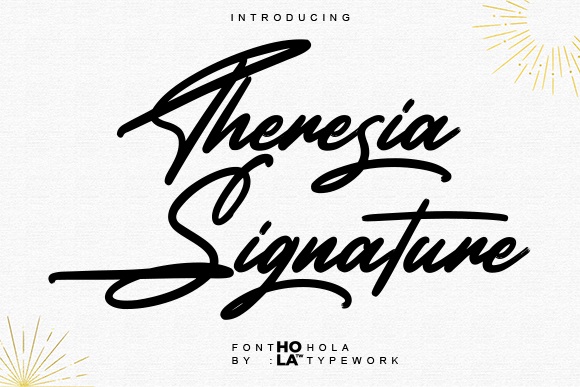
Theresia Font
Introducing Theresia, a versatile fusion of casual brush strokes and refined elegance. This expressive font effortlessly enhances any design need with its unique charm. Ideal for elevating wedding invitations, Brands, eye catching social media, t-shirt, greeting cards, ads and etc.
Theresia Signature Script Font